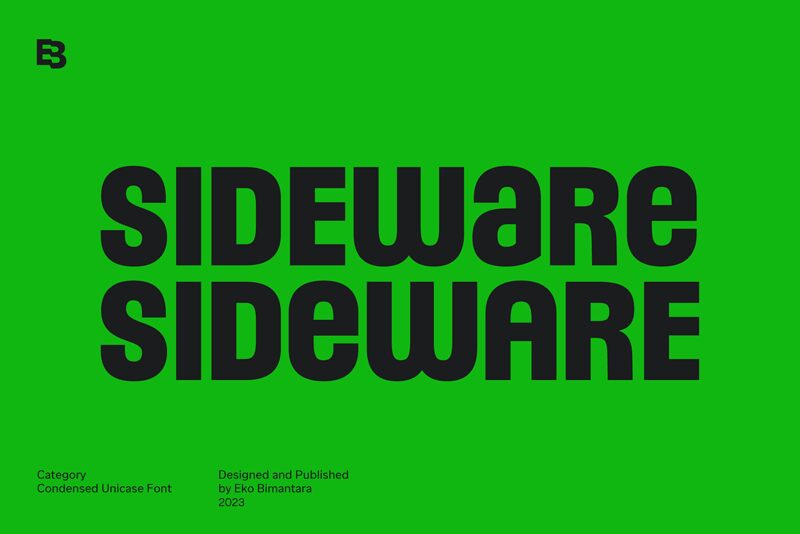
Sideware is a bold modern condensed display font designed by Eko Bimantara. This sans serif font features a unique unicase style, combining compactness and versatility to bring a modern, clean, and simple aesthetic to your projects.
With its eye-catching displays, large-sized text, and captivating headers, Sideware is the perfect choice for elevating various layout designs. Whether you're creating logos, websites, brand identities, product packaging, or engaging in graphic design and creative endeavors, this font will add a touch of sophistication and professionalism to your work.
Its bold weight ensures that your message stands out with impact and clarity.